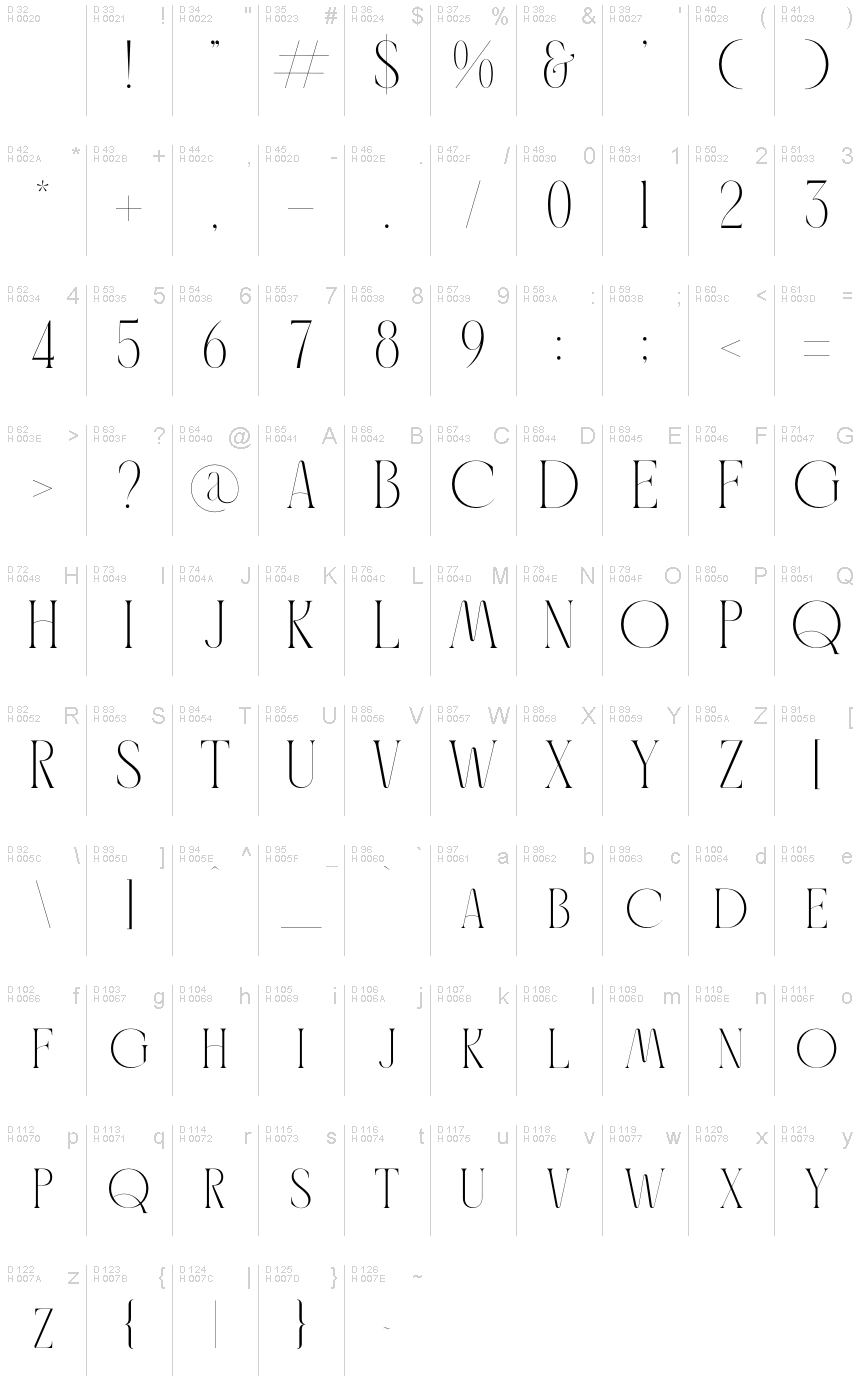
Montcers
Montcers, crafted by Storytype Studio, embodies a refined elegance through its delicate serifs and graceful lines. This light font captures attention with its airy aesthetic, making each character feel both substantial and ethereal. The nuanced curves and natural flow create an inviting visual rhythm, emphasizing sophistication.
Its versatility makes Montcers ideal for high-end branding, elegant invitations, or contemporary editorial design. Whether gracing a minimalist website or enhancing luxurious product packaging, this font elevates any project with understated charm and modernity. Embrace the allure of Montcers to bring a touch of refinement to your creative endeavors.